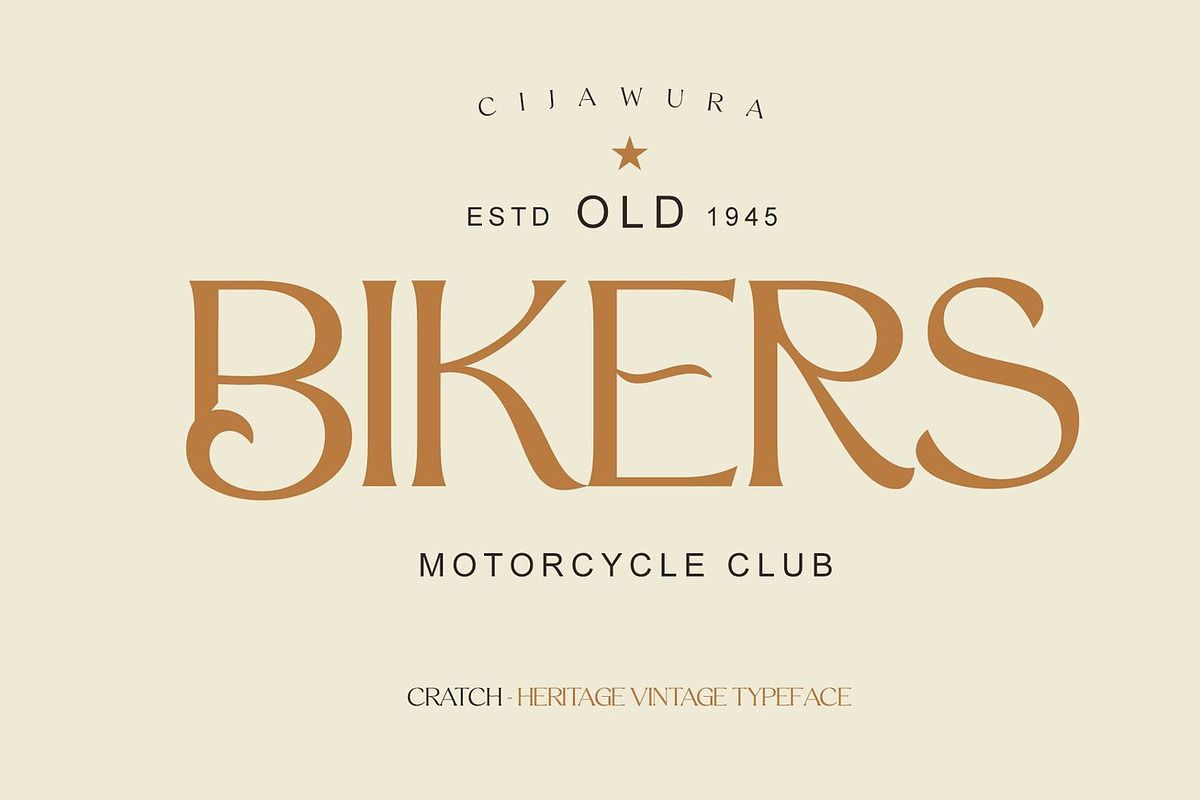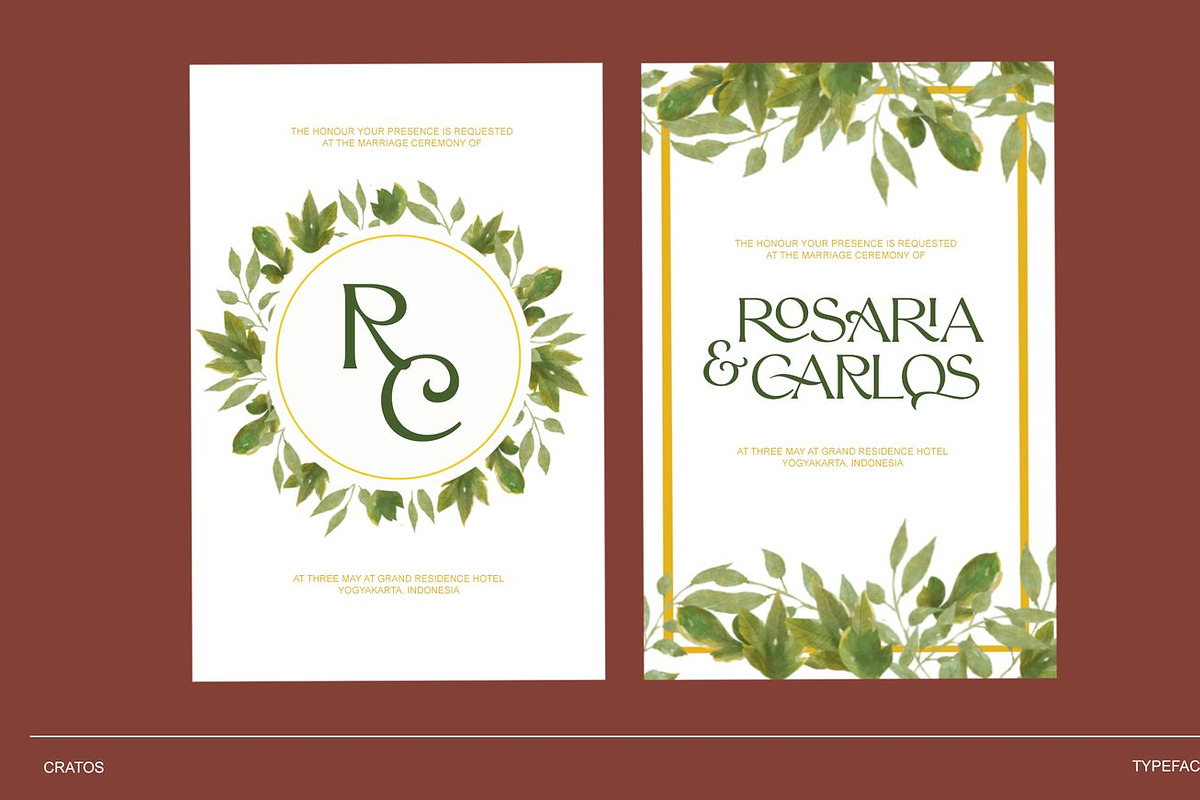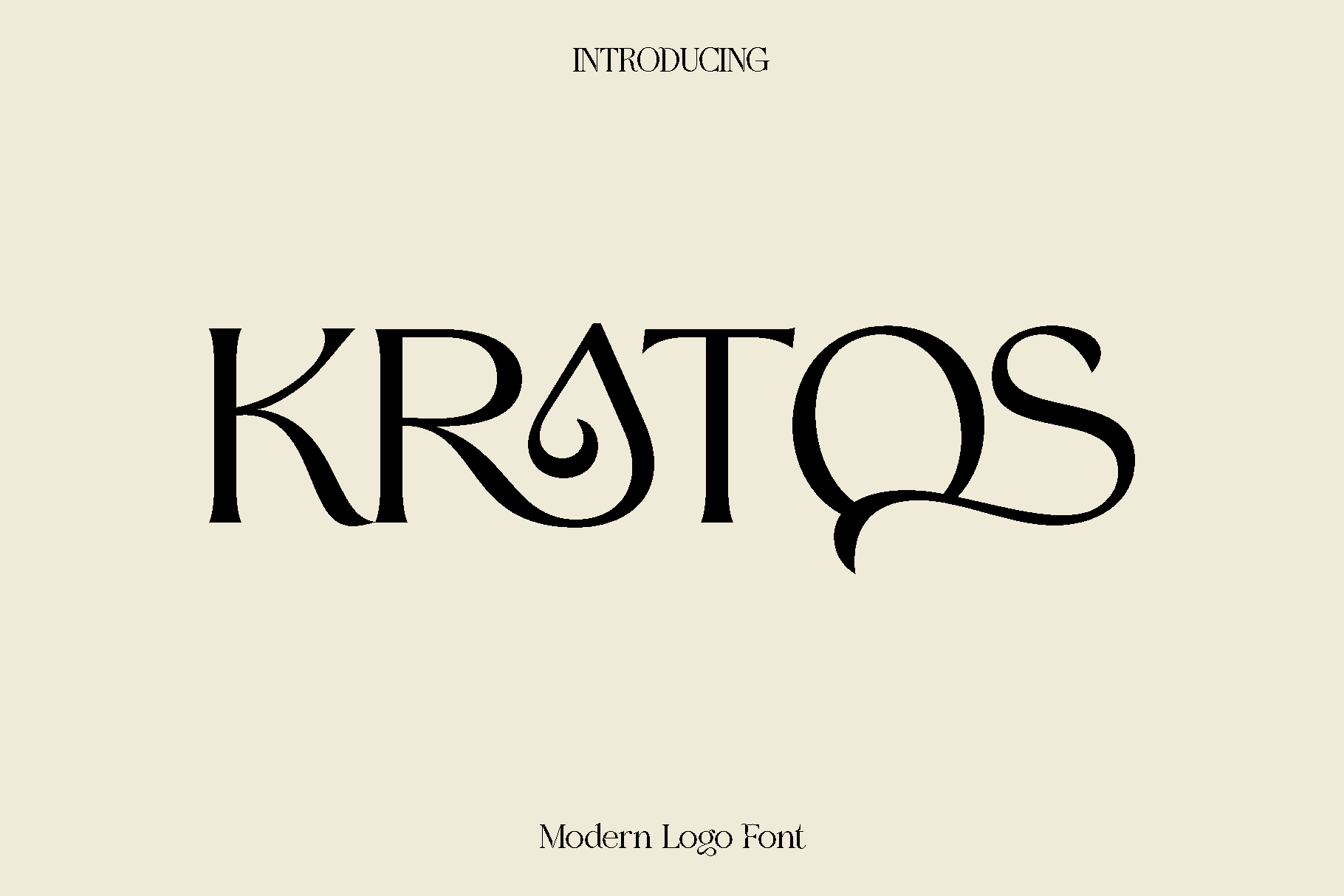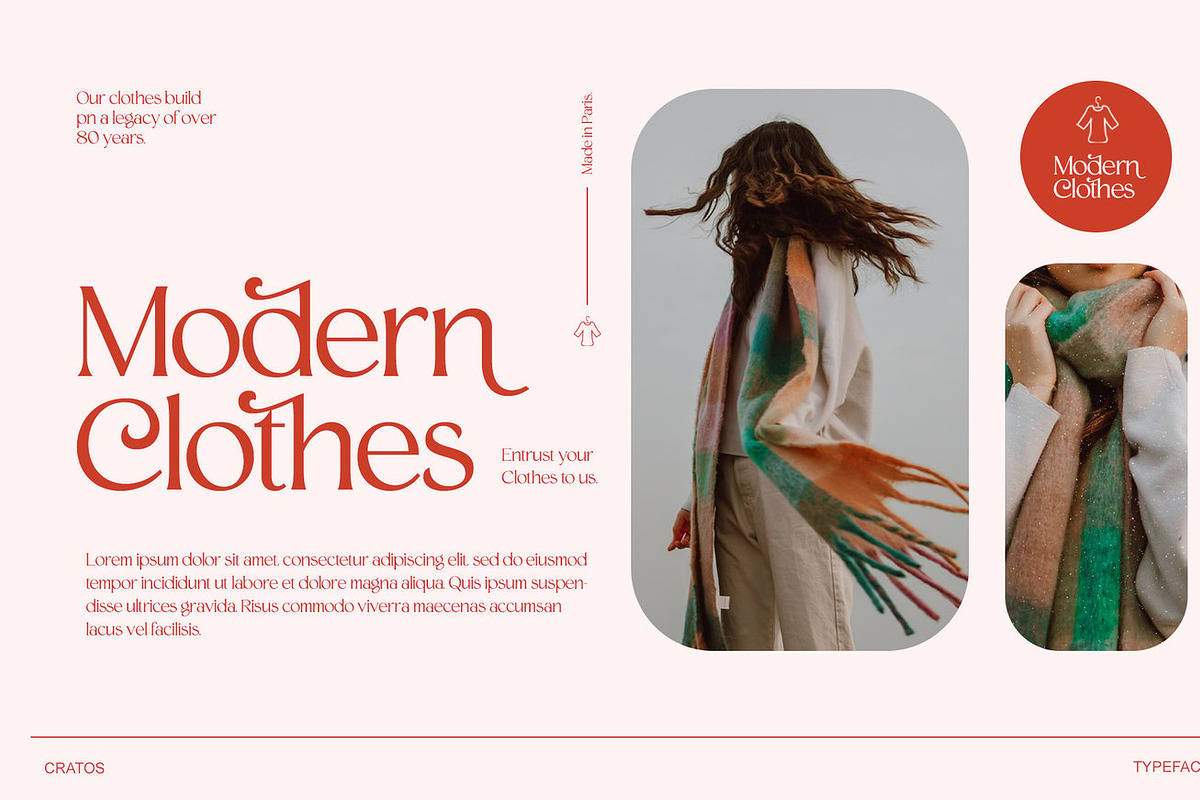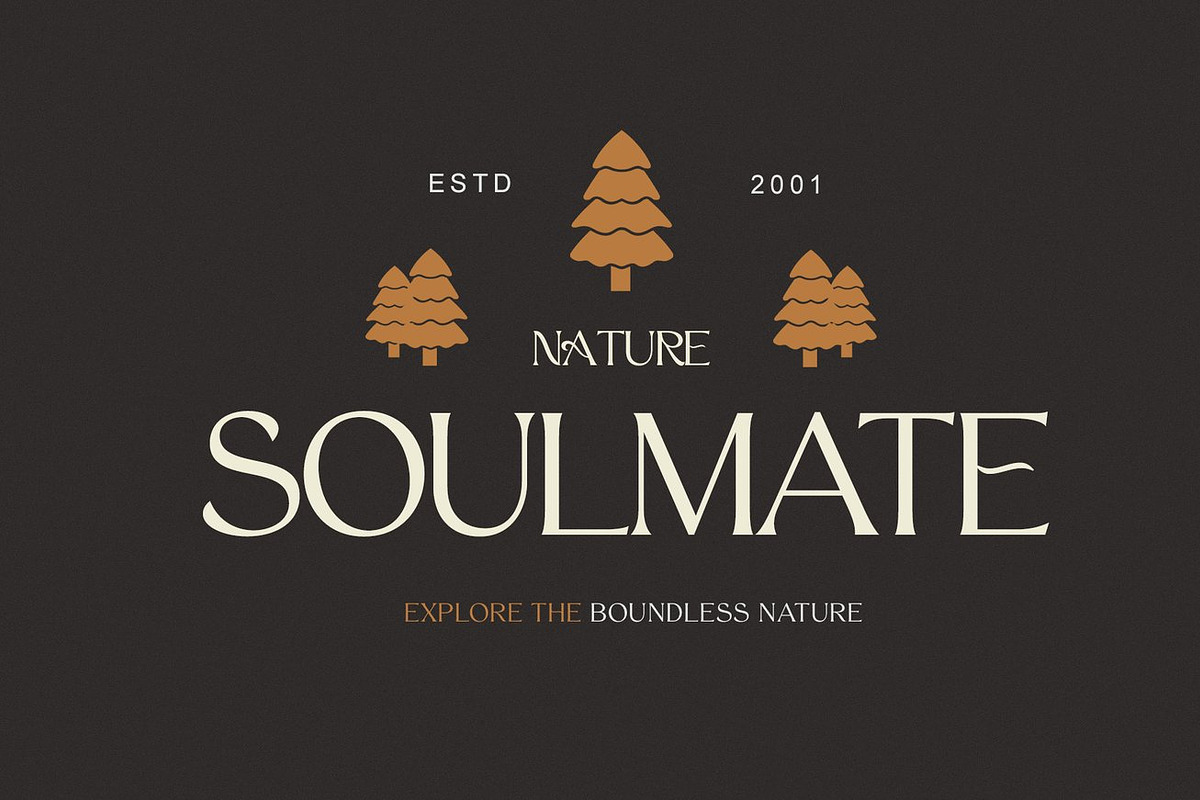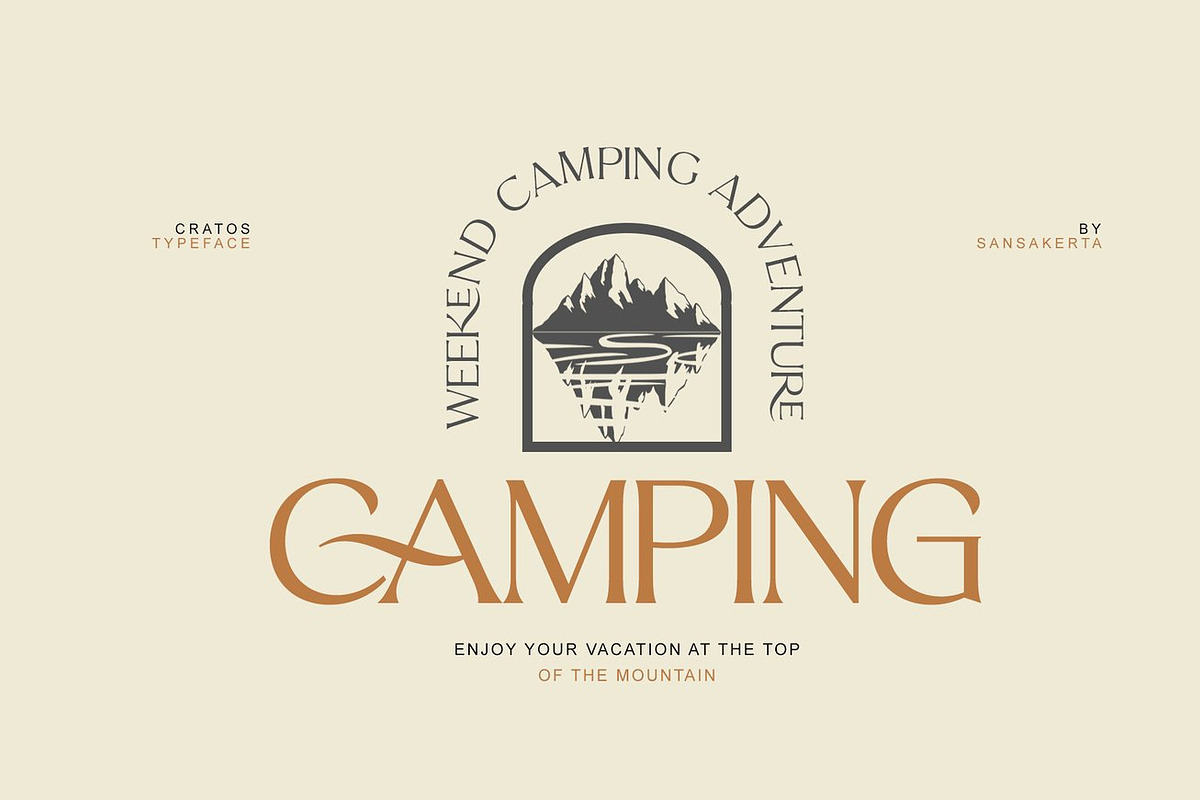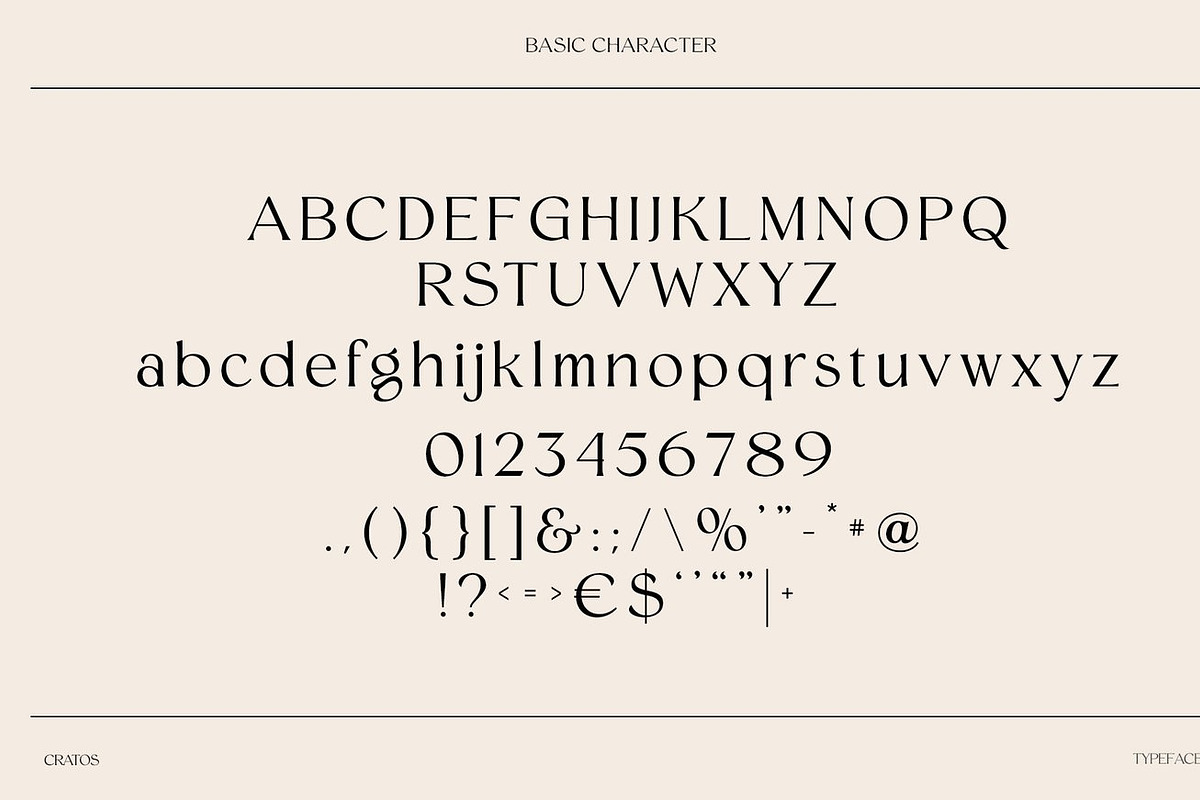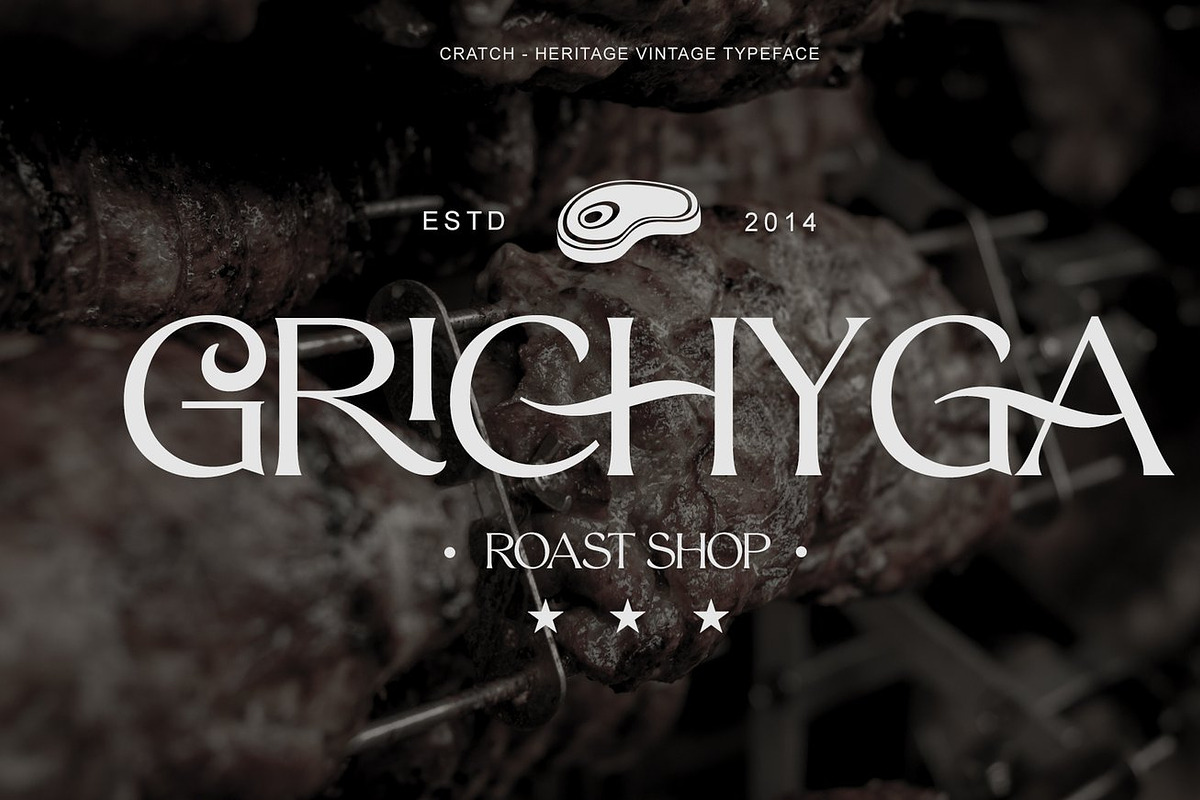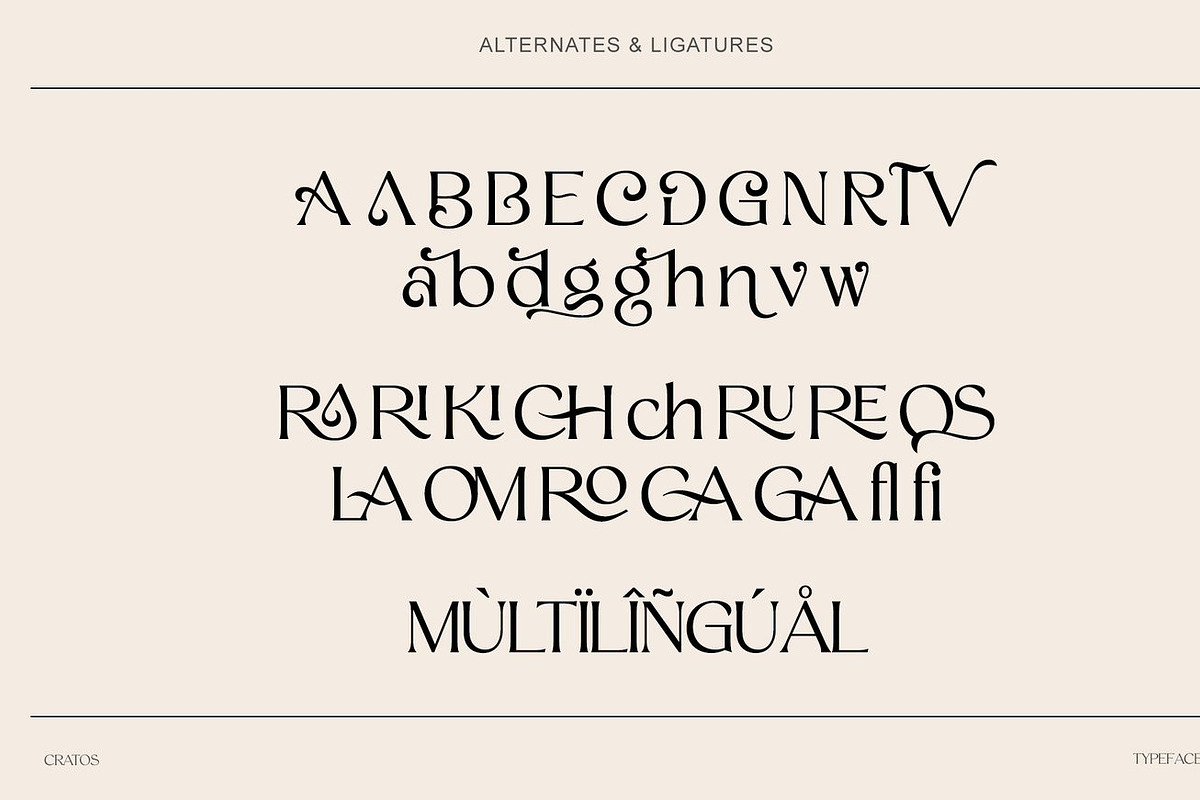
Kratos - Modern Logo Font
Kratos is a powerful and versatile typeface created to bring strength, clarity, and confidence into modern design. Inspired by bold editorial styles and timeless typographic structure, Kratos combines clean forms with a strong visual presence that instantly captures attention. Its balanced proportions and crisp letterforms give it a professional and reliable character, making it suitable for a wide range of creative directions.
Designed to perform beautifully across both print and digital environments, Kratos shines in book covers, magazines, branding projects, logos, photography overlays, quotes, blog headers, posters, and advertising campaigns. The font feels modern yet timeless, allowing designers to create layouts that are impactful without feeling overwhelming. Whether used for bold headlines or supporting text, Kratos maintains excellent readability and visual harmony.
Kratos delivers a sense of authority and style that elevates any composition. Its versatility makes it an essential addition to any designer’s toolkit, offering flexibility for both minimal layouts and expressive visual concepts. With its strong presence and clean execution, Kratos helps your message stand out with confidence and professionalism.
Kratos Typeface Features:
• Uppercase and lowercase
• Numerals and functional punctuation
• Multilingual support
• Clean and versatile letterforms